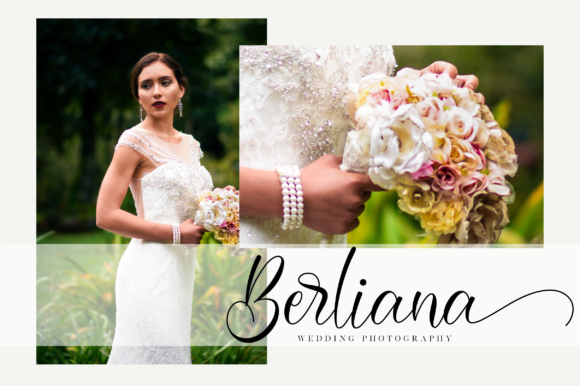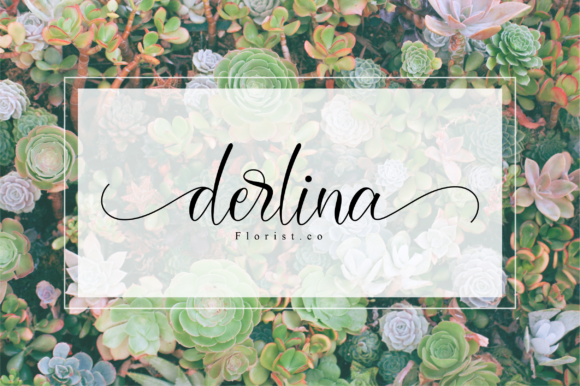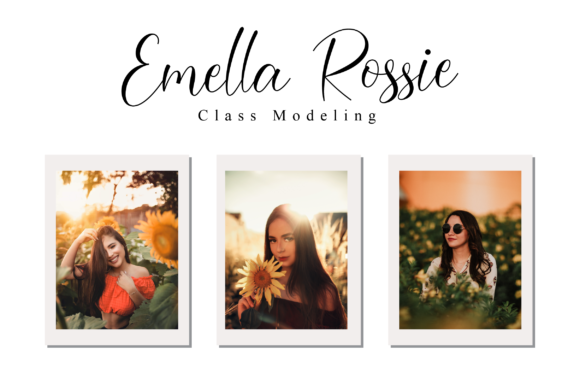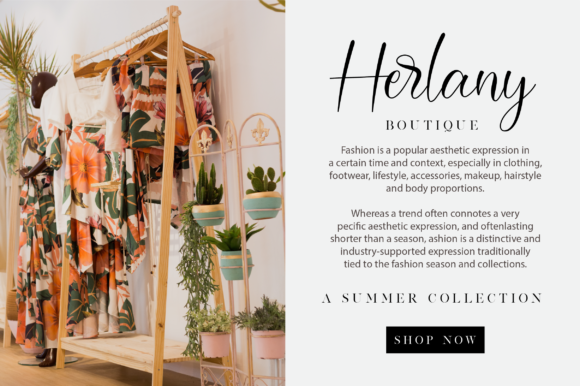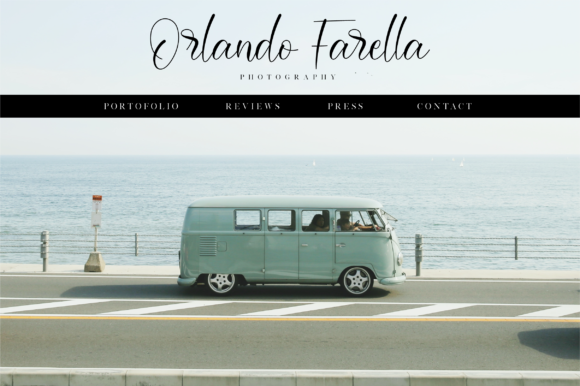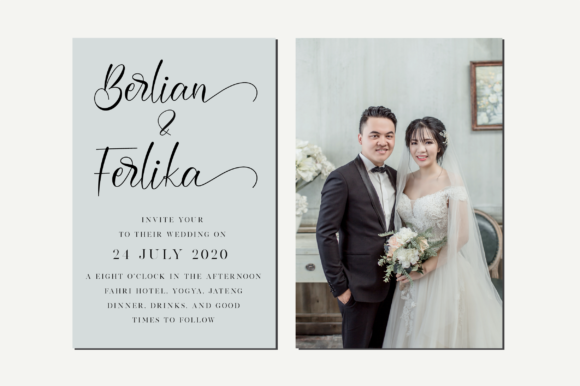
Darcella Font: Elevate Your Designs with Elegance and Magic
Are you a designer or crafter looking for a font that can add a touch of elegance and magic to your projects? Look no further than Darcella Font! This beautiful, handwritten font is carefully crafted to elevate a wide range of design projects to the highest level. From branding and headings to wedding designs, invitations, signatures, logos, labels, and more, Darcella Font is the perfect choice for anyone looking to add a dash of sophistication and whimsy to their work.
The Story Behind Darcella Font
Darcella Font is a unique and enchanting font that is designed to bring a touch of luxury and refinement to any design project. With its flowing lines, delicate curves, and whimsical flourishes, this font is sure to captivate your audience and leave a lasting impression. Whether you’re creating a brand identity, designing a wedding invitation, or crafting a logo, Darcella Font is the perfect choice for anyone looking to add a touch of elegance and sophistication to their work.
Key Features of Darcella Font
So, what makes Darcella Font so special? Here are just a few of the key features that set this font apart:
- Handwritten with love: Darcella Font is carefully crafted by hand, with each letter and character lovingly designed to bring a touch of warmth and personality to your designs.
- Elegant and refined: With its flowing lines and delicate curves, Darcella Font is the perfect choice for anyone looking to add a touch of sophistication and elegance to their designs.
- Magical and whimsical: This font is not just elegant, but also playful and whimsical, making it perfect for designers and crafters who want to add a touch of magic to their work.
- Versatile: Darcella Font is incredibly versatile, and can be used for a wide range of design projects, from branding and headings to wedding designs, invitations, signatures, logos, labels, and more.
How to Use Darcella Font in Your Designs
So, how can you use Darcella Font in your designs? Here are just a few ideas to get you started:
- Branding: Use Darcella Font to create a luxurious and sophisticated brand identity that will elevate your business to the next level.
- Wedding designs: This font is perfect for wedding invitations, wedding stationery, and other wedding-related designs.
- Headings and titles: Use Darcella Font to add a touch of elegance and sophistication to your headings and titles.
- Signatures and logos: This font is perfect for creating beautiful and elegant signatures and logos.
- Labels and packaging: Use Darcella Font to add a touch of whimsy and elegance to your labels and packaging.
Why Choose Darcella Font?
So, why should you choose Darcella Font for your design projects? Here are just a few reasons:
- Unique and exclusive: Darcella Font is a unique and exclusive font that will help you stand out from the crowd.
- Elegant and sophisticated: This font is the perfect choice for anyone looking to add a touch of elegance and sophistication to their designs.
In conclusion, Darcella Font is a magical handwritten font that is carefully crafted with a touch of elegance. With its flowing lines, delicate curves, and whimsical flourishes, this font is sure to elevate a wide range of design projects to the highest level. Whether you’re a designer or crafter, Darcella Font is the perfect choice for anyone looking to add a dash of sophistication and whimsy to their work. So why wait? Download Darcella Font today and start creating beautiful and elegant designs that will leave a lasting impression!